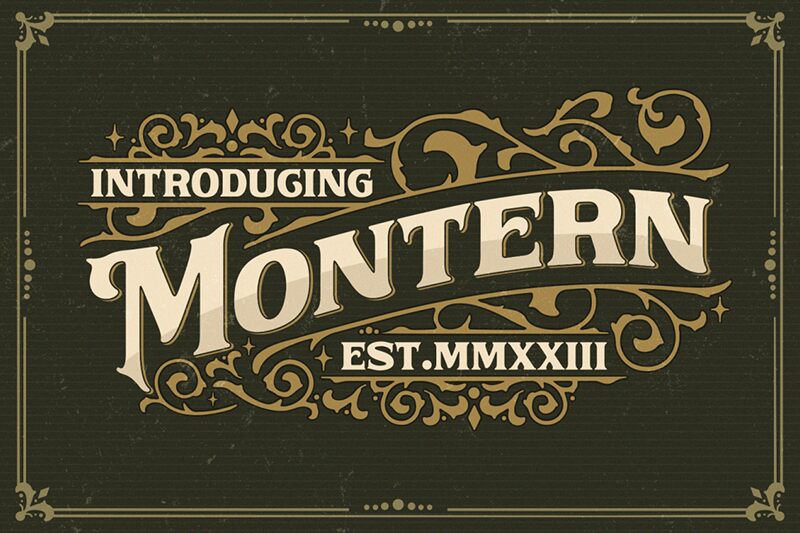
Montern
Montern font by HansCo is a bold display typeface crafted in retro style. This font stands out with its Gothic influences, decorative elements, and traditional charm. It has an ornate design that invites medieval vibes combined with a historic appeal. Montern’s offbeat style leads the creative touch to attract audiences’ attention.
Montern is free and suitable for book covers, packaging designs, logos, branding projects, clothing items, label designs, posters, game interfaces and graphics or invitation cards. Its classic design allows it to enrich typography project after another with its timeless beauty.